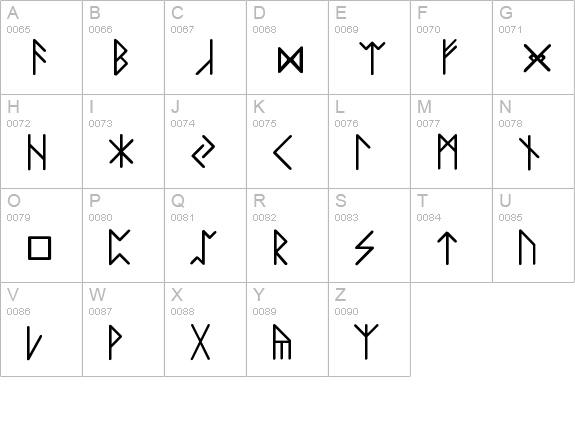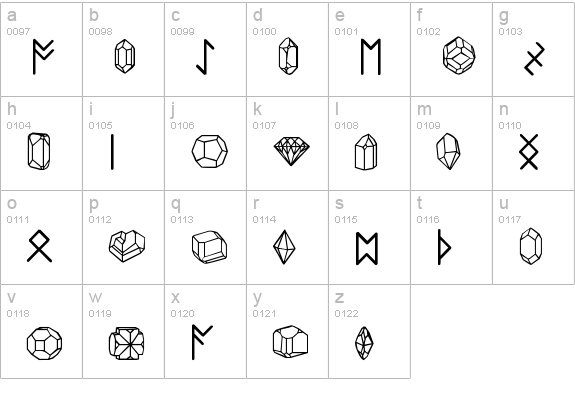
Zillaroonies Font Details
Introducing Zillaroonies Font - a whimsical and playful typeface that exudes charm and creativity. With its quirky letter shapes and unique design, Zillaroonies is perfect for adding a touch of fun to your projects. Whether you're working on invitations, posters, or branding materials, this font will surely make your text stand out. Zillaroonies Font is not only eye-catching but also versatile, making it suitable for a wide range of designs. Its friendly and inviting appearance will instantly captivate your audience and leave a lasting impression. Best of all, Zillaroonies Font is completely free to download at FontsMarket.com, allowing you to unleash your creativity without any cost constraints. Don't miss out on the opportunity to enhance your designs with this delightful font. Download Zillaroonies Font today and let your imagination run wild!